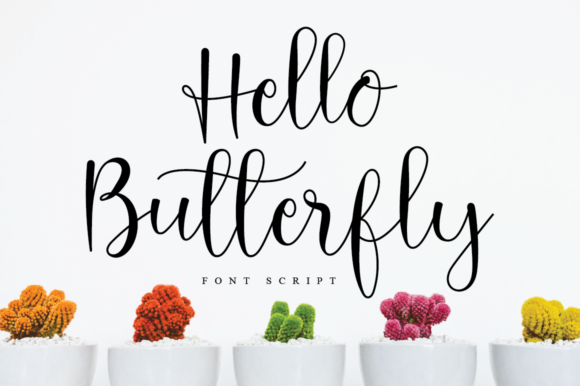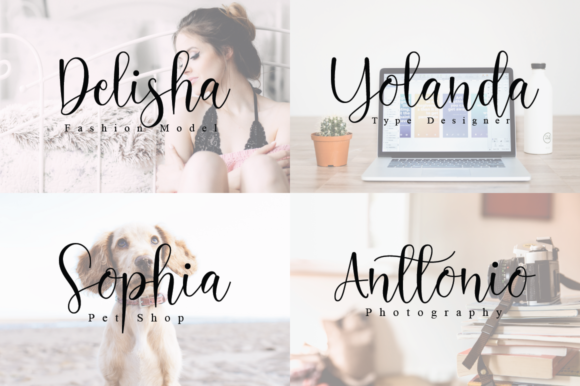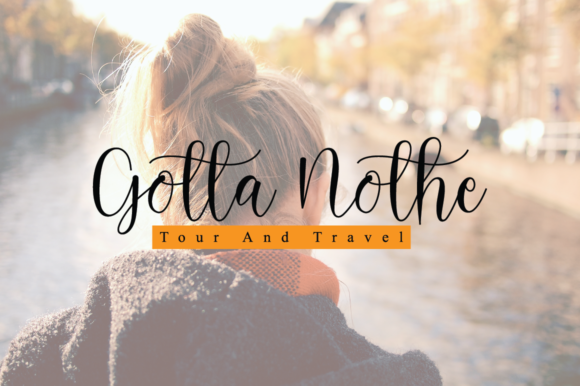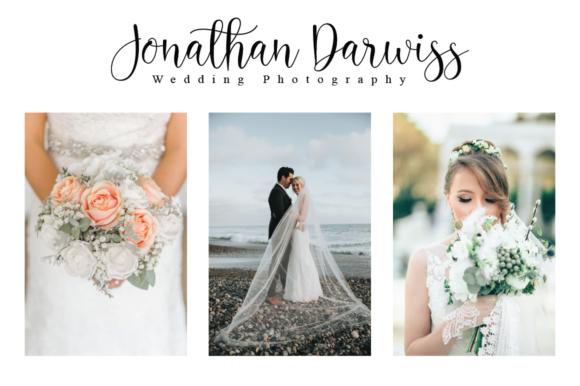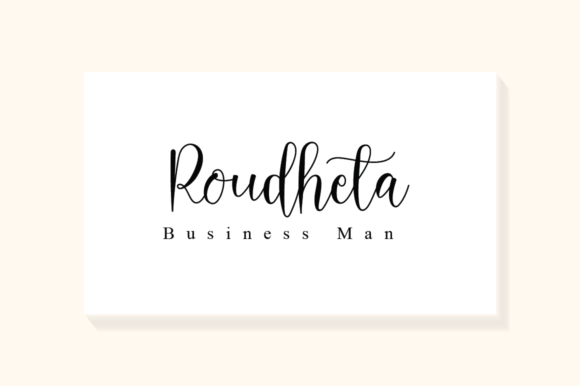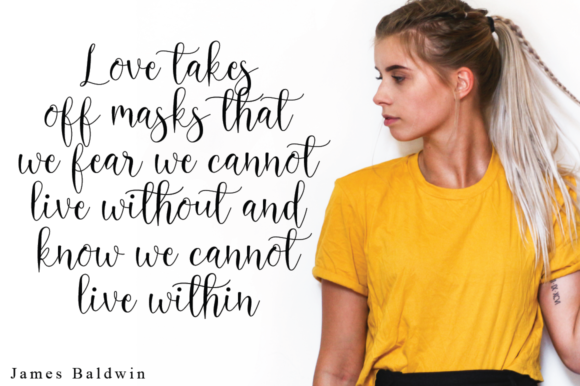
Hello Butterfly Font
About Hello Butterfly Font
Hello Butterfly is a beautiful script font. It has a classy, elegant, and modern look that can be used for logos, branding, invitations, stationary, wedding designs, social media posts and much more!